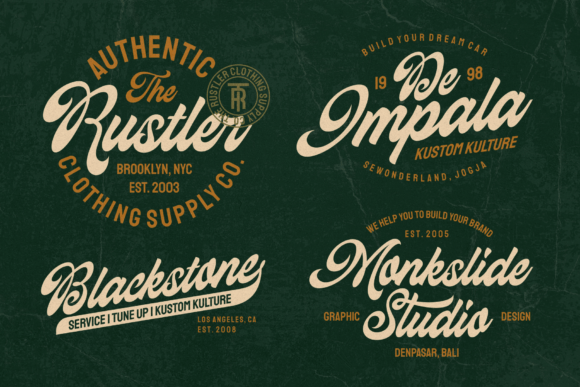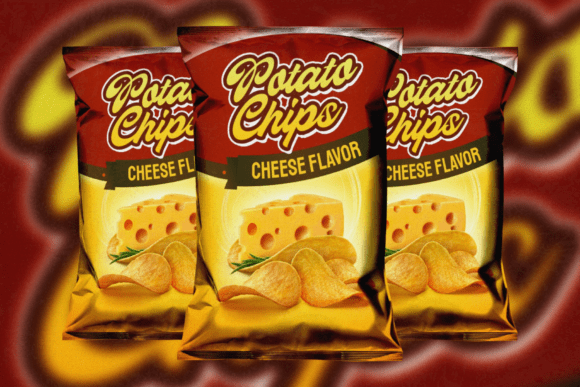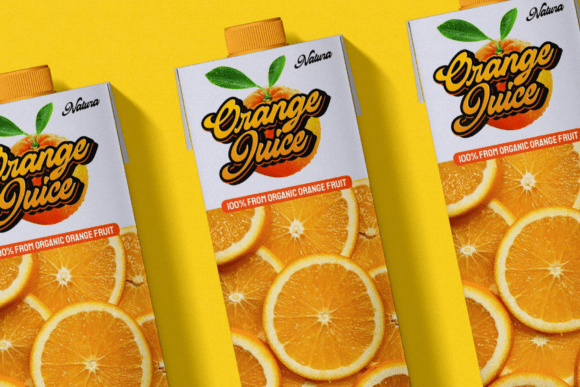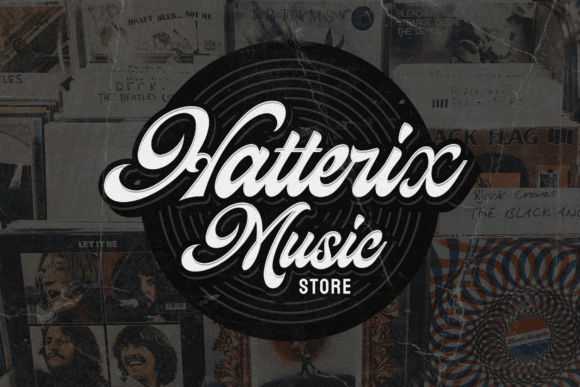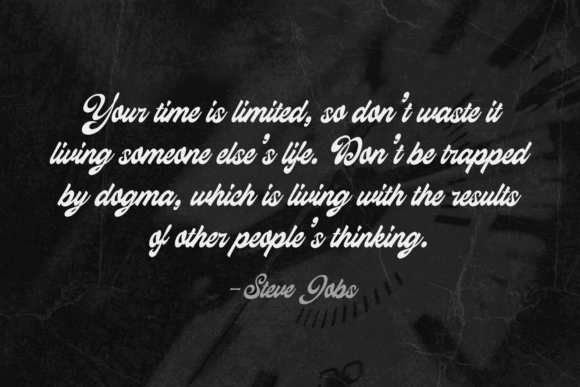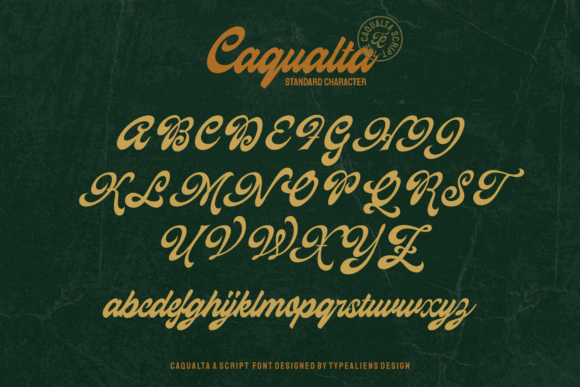
Discover the Timeless Charm of Caqualta Font: A Bold Display Script for Vintage-Inspired Branding
Step into a world of vintage craftsmanship with The Caqualta, a bold display script that embodies a “classic-and-custom” soul. This stunning typeface is designed to transport you back in time, evoking the nostalgia of retro sign painting and the sophistication of modern athletic branding. With its unique blend of thick, rhythmic letterforms and subtle textures, The Caqualta is the perfect choice for designers and crafters looking to add a touch of heritage personality to their projects.
The Characteristics of Caqualta Font
The Caqualta font features a distinctive hand-lettered flow, characterized by thick, bold letterforms that exude a sense of confidence and ruggedness. The subtle textures and imperfections in the font add a layer of authenticity, giving it a truly unique and custom feel. The heavy structural weight of The Caqualta makes it perfect for high-impact designs, such as social media headers, posters, and billboards.
Inspiration from Retro Sign Painting and Modern Athletic Branding
The Caqualta font draws inspiration from the classic art of retro sign painting, where skilled artisans would painstakingly craft beautiful lettering by hand. The font’s bold, expressive letterforms and subtle textures pay homage to this timeless craft, while its modern athletic branding aesthetic gives it a fresh and contemporary feel. Whether you’re designing a logo for a vintage motorcycle apparel brand or a handcrafted coffee shop, The Caqualta font is sure to make a lasting impression.
Ideal Applications for Caqualta Font
So, what can you create with The Caqualta font? The possibilities are endless! Here are some ideal applications for this versatile typeface:
- Independent Brewery Branding: The Caqualta font is perfect for craft breweries looking to establish a strong brand identity. Its bold, vintage-inspired aesthetic is sure to stand out on labels, packaging, and marketing materials.
- Vintage Motorcycle Apparel: Add a touch of nostalgia to your motorcycle apparel designs with The Caqualta font. Its rugged, custom feel is perfect for creating bold, eye-catching logos and graphics.
- Handcrafted Coffee Shop Identities: The Caqualta font is a great choice for specialty coffee shops looking to establish a unique brand identity. Its heritage personality and subtle textures evoke a sense of warmth and craftsmanship.
- High-Impact Social Media Headers: Make a statement on social media with The Caqualta font. Its heavy structural weight and bold letterforms are sure to grab attention and drive engagement.
Why Choose Caqualta Font?
So, why choose The Caqualta font for your next design project? Here are just a few reasons:
- Unique and Custom Feel: The Caqualta font offers a truly unique and custom feel, perfect for designers and crafters looking to stand out from the crowd.
- Versatile: The Caqualta font is versatile and can be used in a variety of applications, from branding and packaging to social media and advertising.
- High-Impact: The Caqualta font is designed to make a lasting impression, with its bold, expressive letterforms and heavy structural weight.
- Heritage Personality: The Caqualta font embodies a heritage personality that is sure to evoke a sense of nostalgia and craftsmanship.
In conclusion, The Caqualta font is a bold display script that captures the essence of vintage craftsmanship and modern athletic branding. With its unique blend of thick, rhythmic letterforms and subtle textures, this typeface is perfect for designers and crafters looking to add a touch of heritage personality to their projects. Whether you’re designing a logo for an independent brewery, vintage motorcycle apparel, or handcrafted coffee shop, The Caqualta font is sure to make a lasting impression.